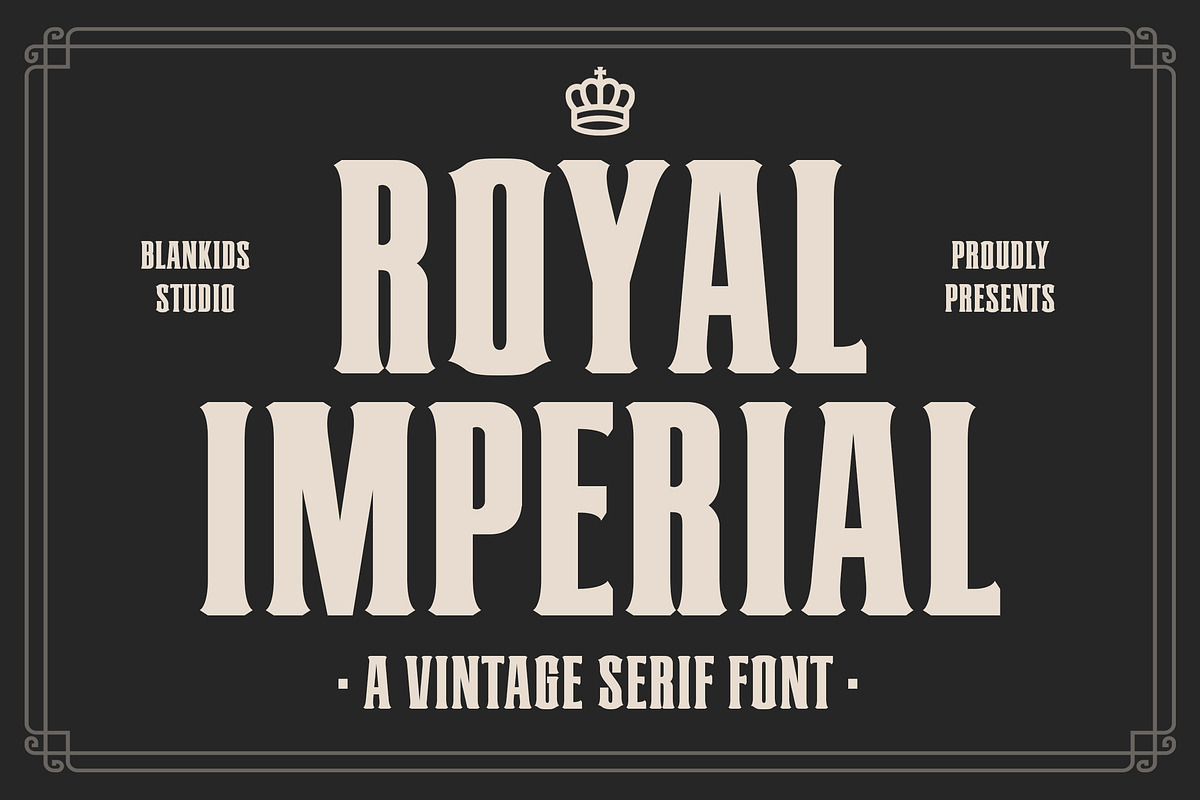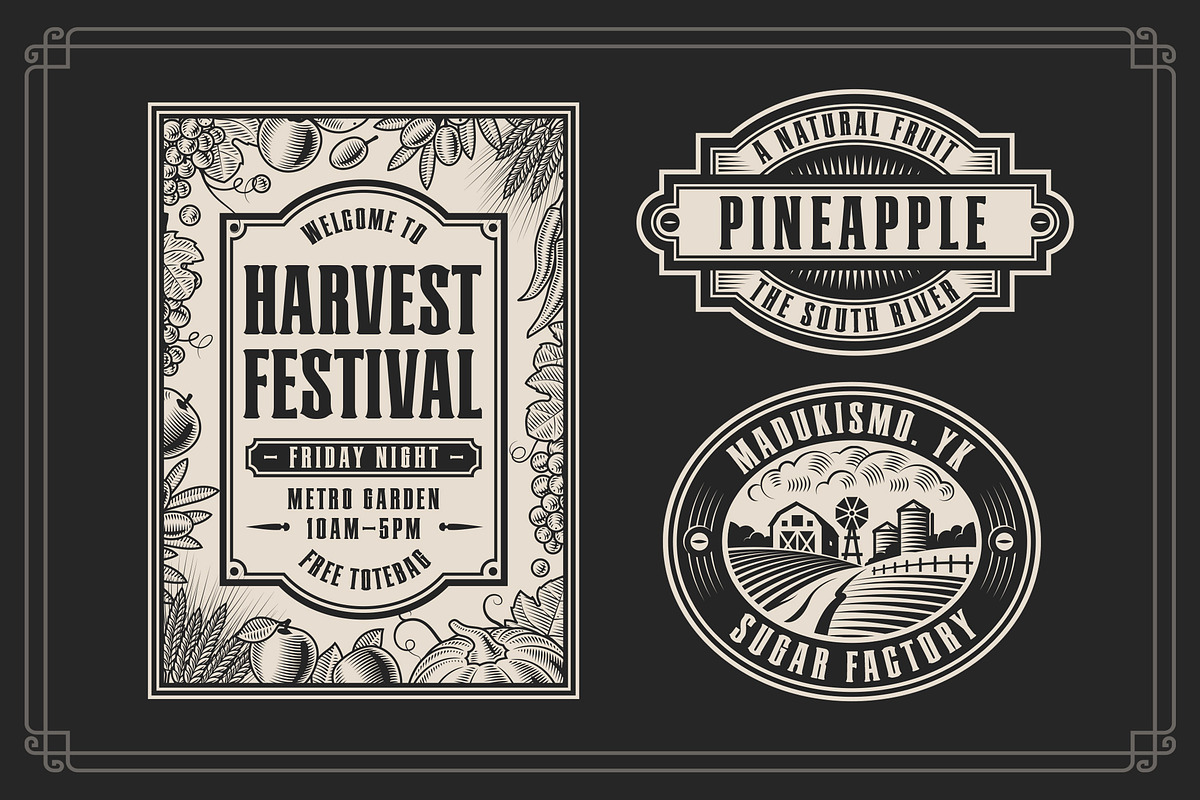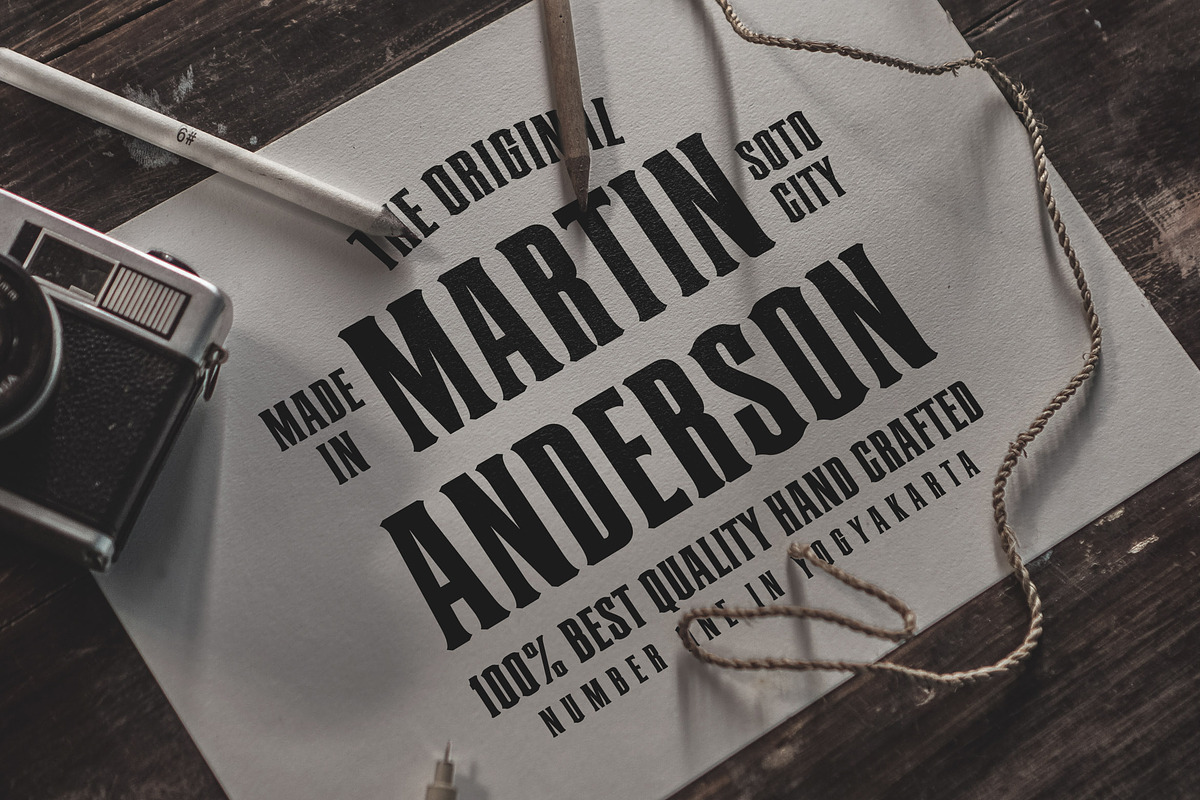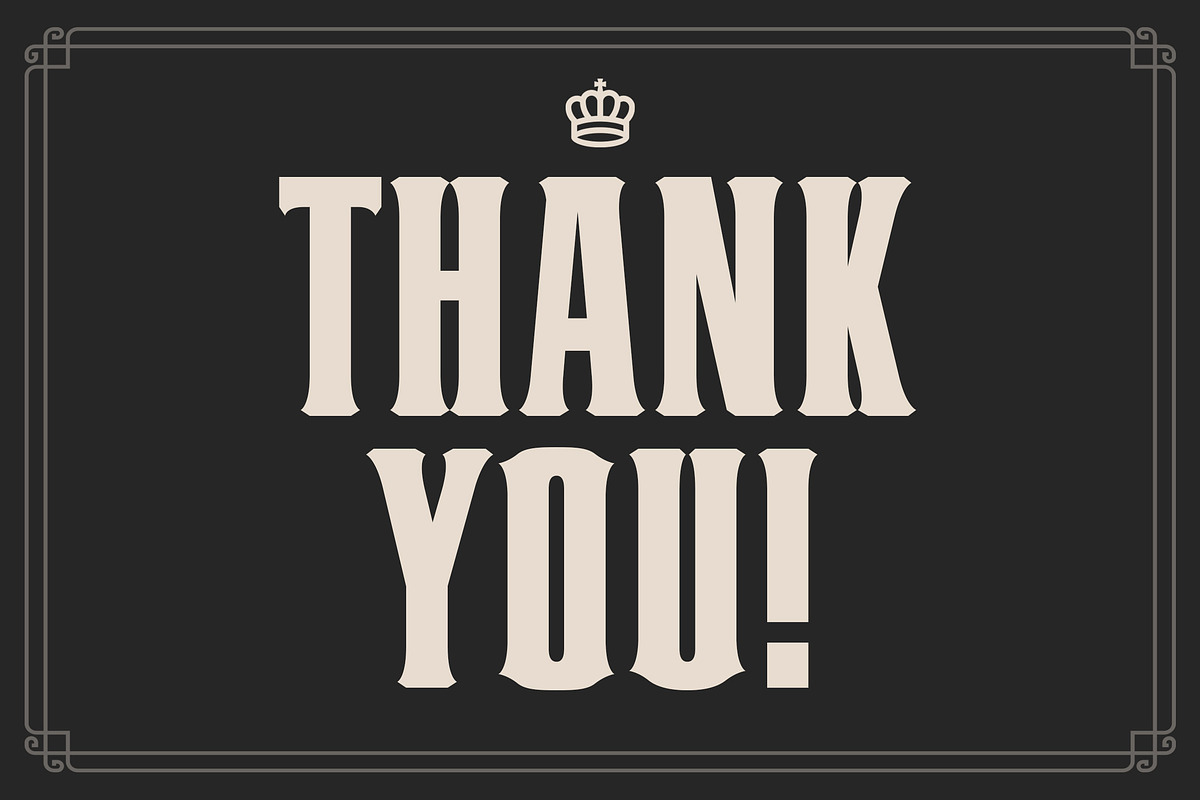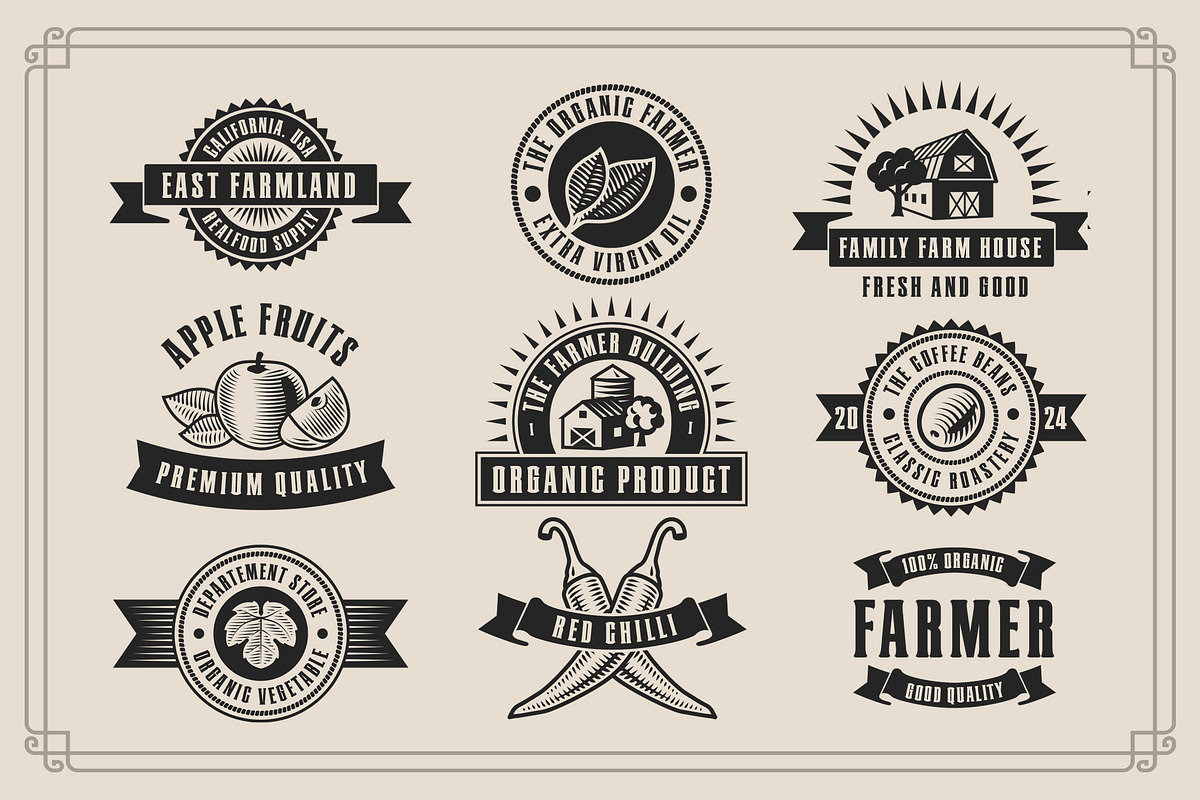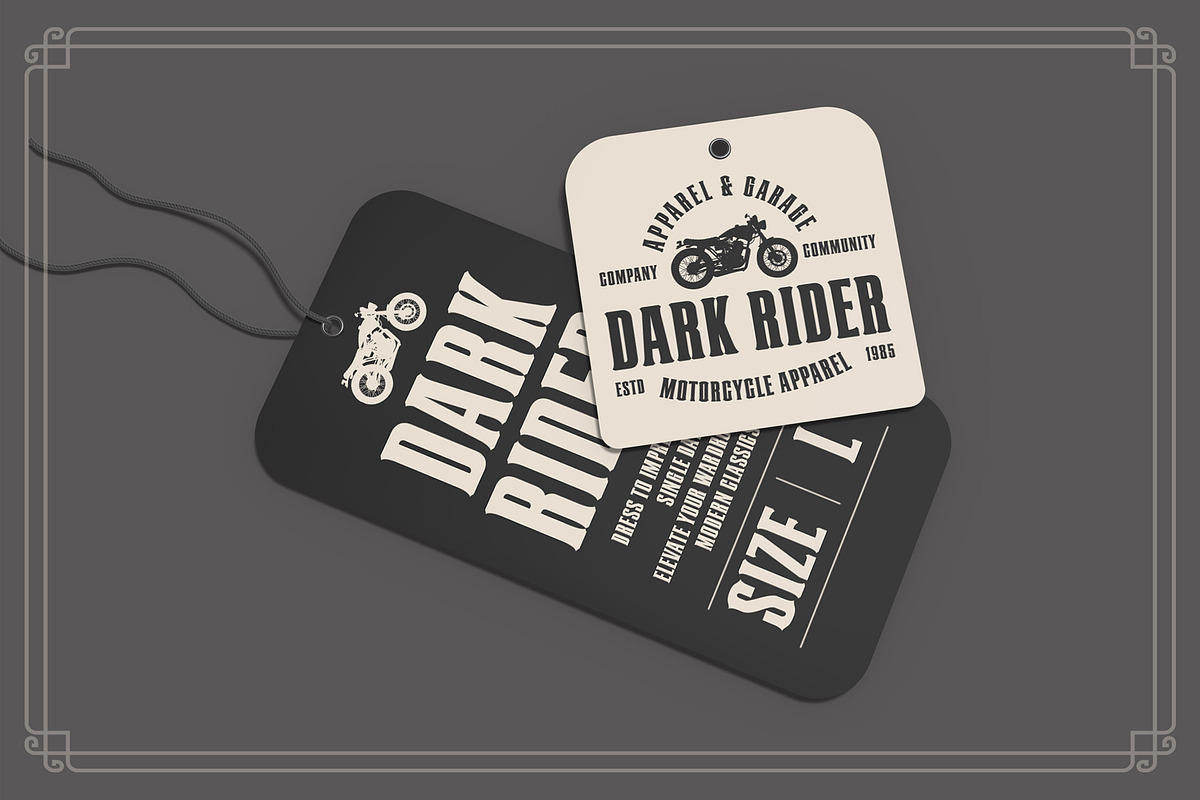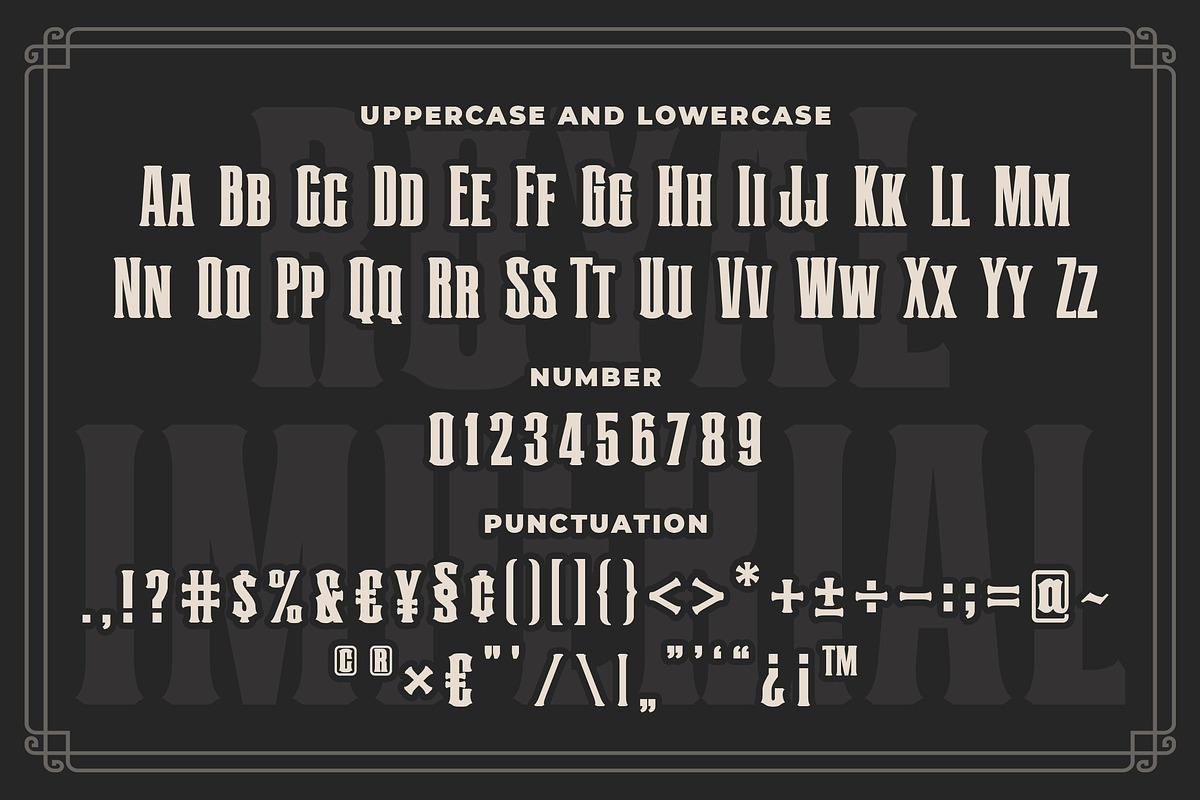
Royal Imperial Vintage Collage Font
Introducing ‘Royal Imperial,’ a captivating serif font that stands as the epitome of bold elegance and vintage charm. This typeface exudes strength and precision with its robust and assertive design, making it the ideal choice for branding, display, logotypes, and corporate projects that demand attention.
The carefully crafted vintage serif style adds a touch of timeless sophistication to your creations, ensuring a lasting impression. With its commanding presence and versatility, ‘Royal Imperial’ transforms ordinary designs into extraordinary masterpieces. Elevate your visual identity and make a statement with this remarkable serif font. Perfectly suited for those who appreciate the fusion of classic and contemporary design elements. Embrace the regal allure of ‘Royal Imperial’ and let your projects reign with distinction.”